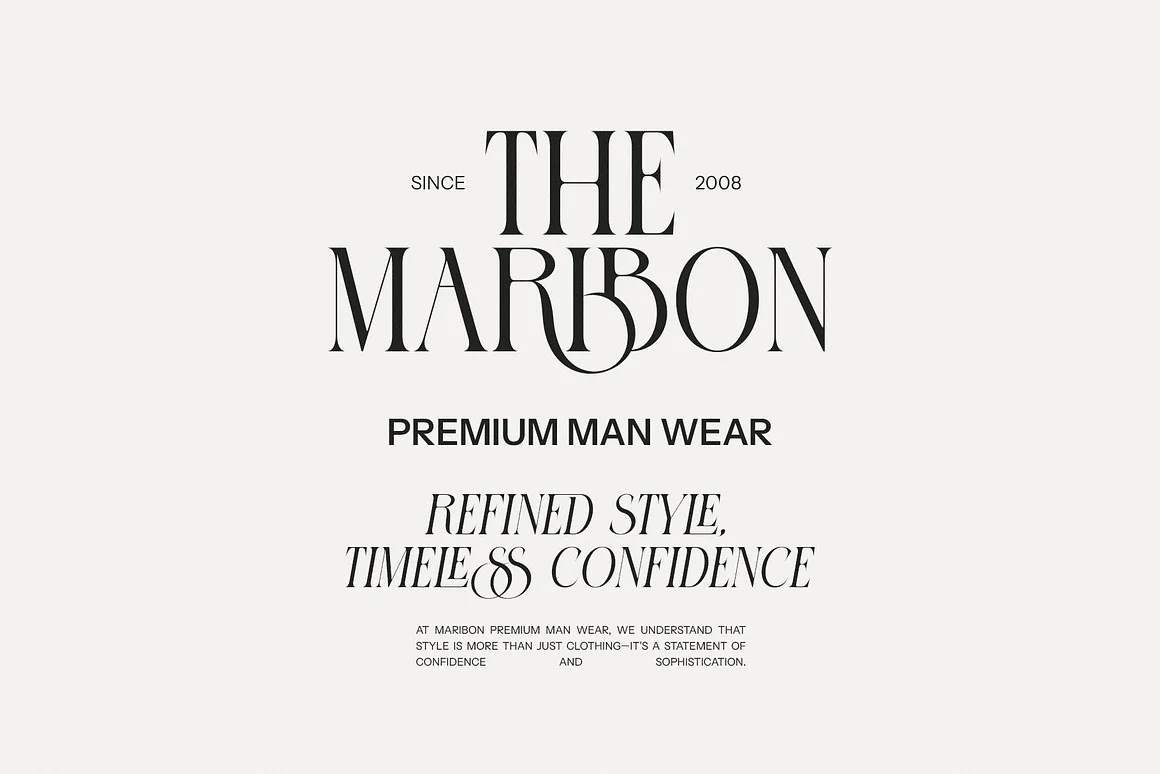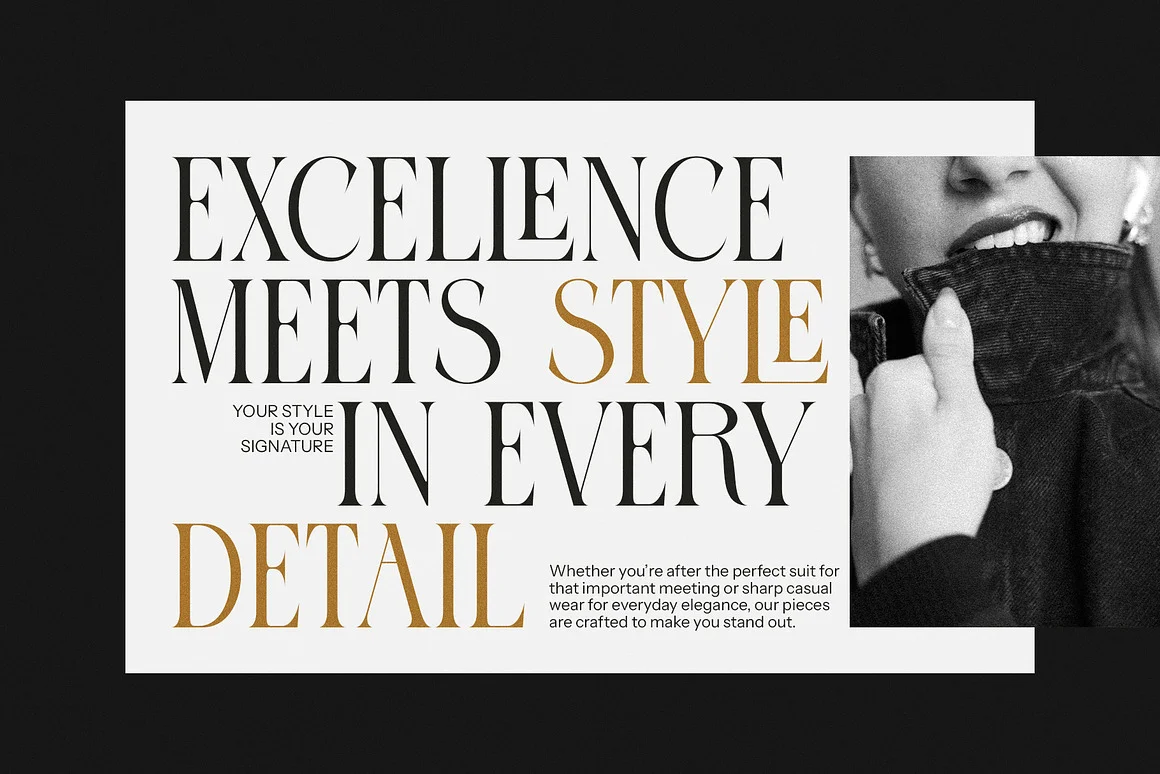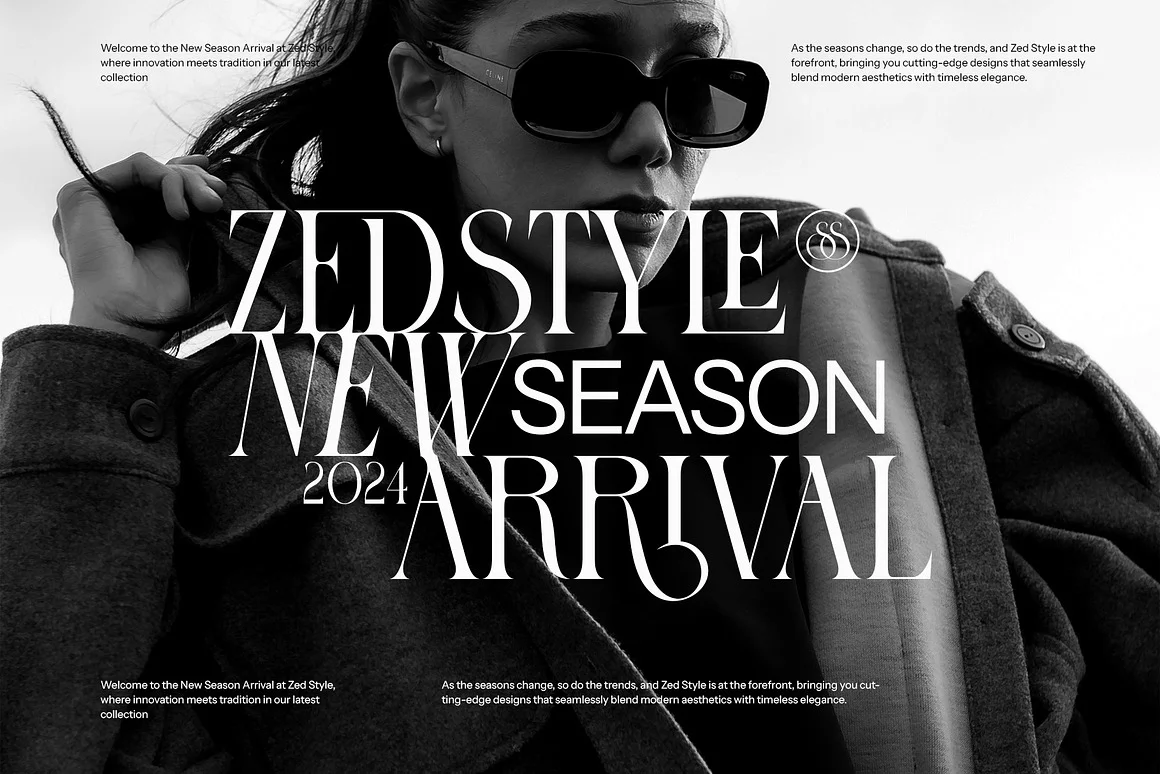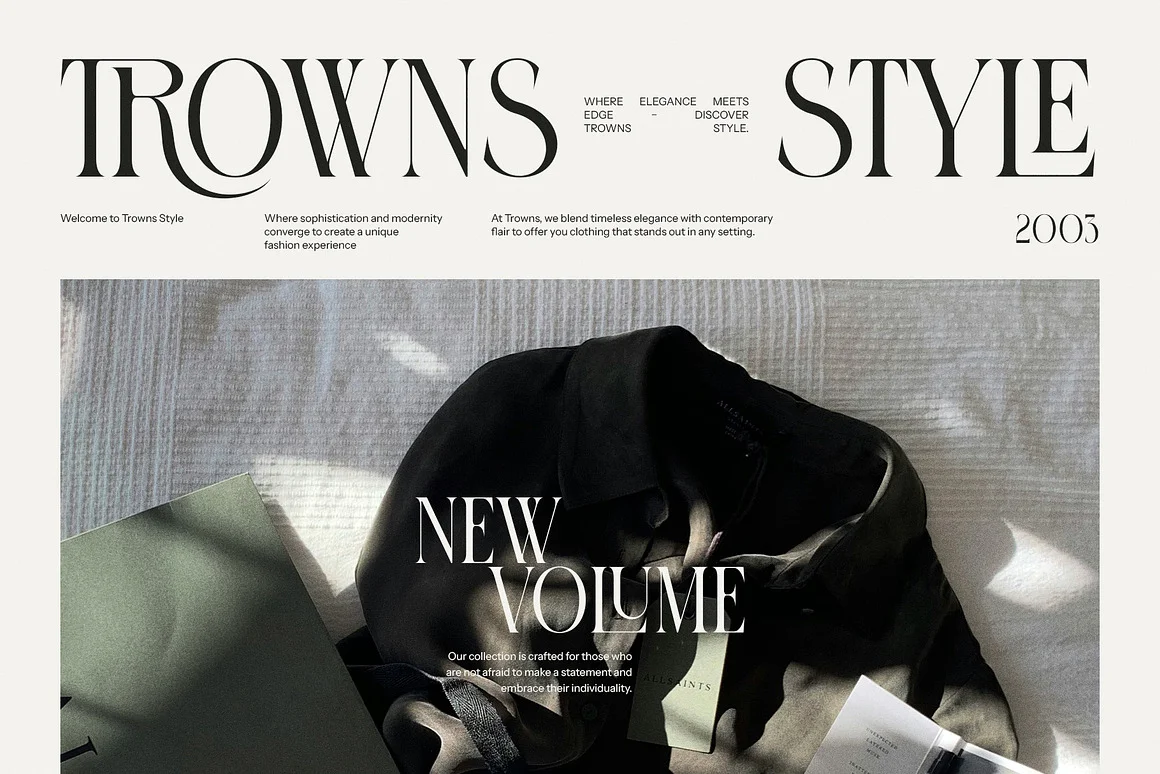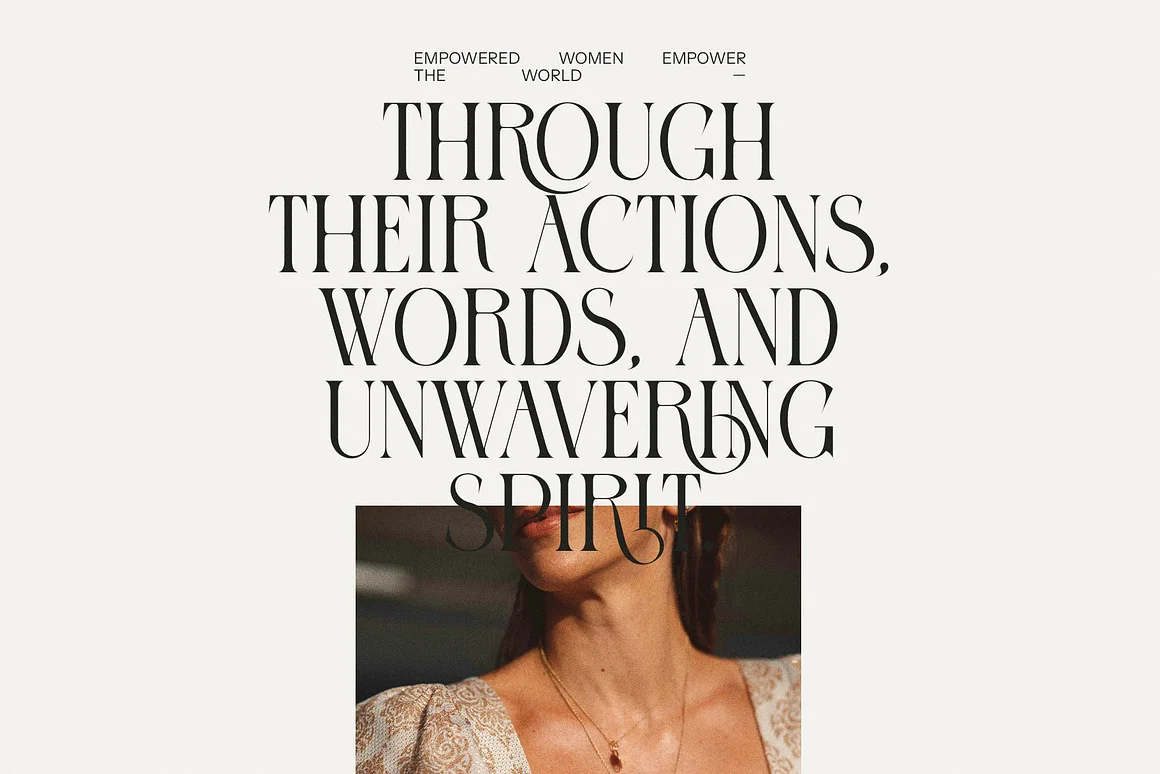
Katros Elegant Serif Font
Katros Elegant Serif is a professional-grade typeface designed to elevate branding, editorial, and identity projects.
Its proportions suit a wide range of uses: website headers, printed flyers, restaurant menus, annual reports, and product packaging.
Explore what Katros Elegant Serif can do for your work and experience the difference a well-crafted typeface makes.